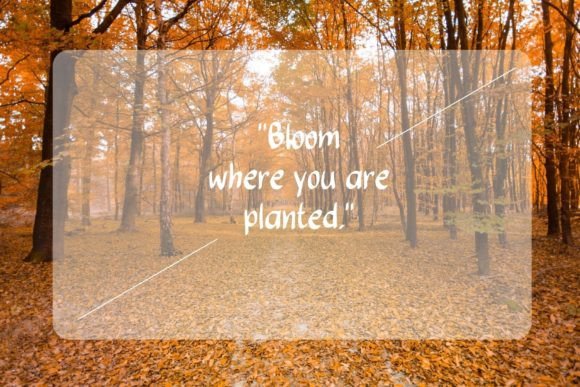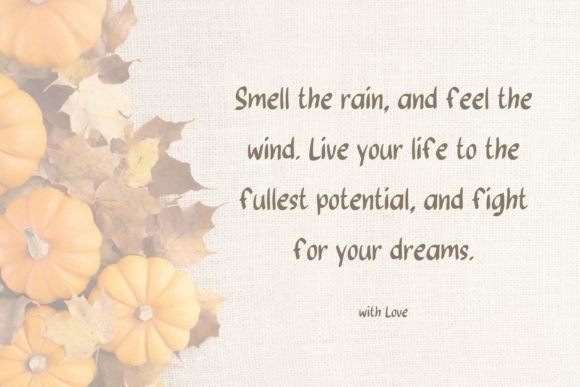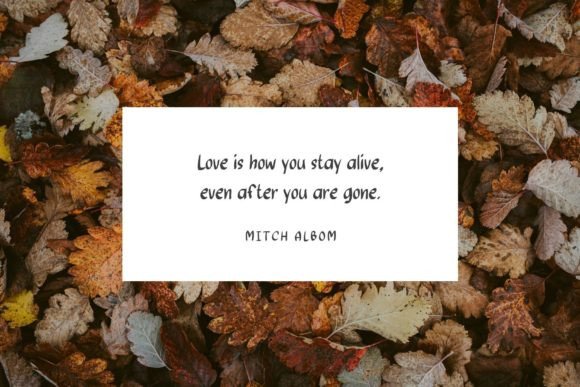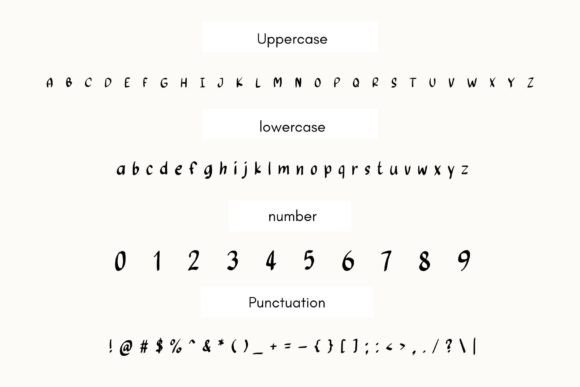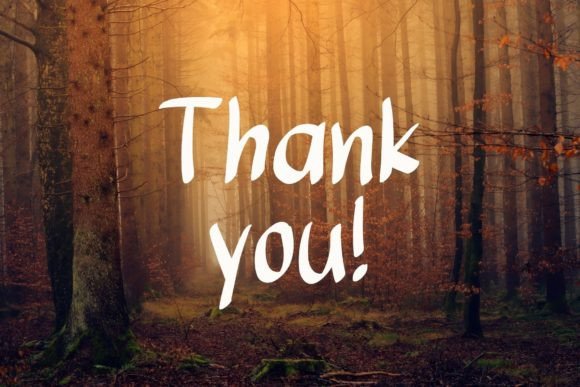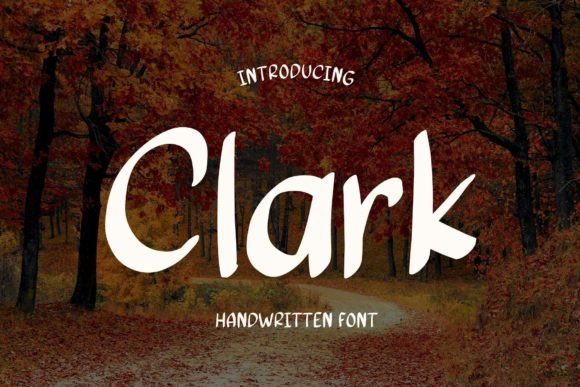
Discover the Charm of Clark Font: A Cute Handwritten Font for Your Creative Projects
Are you a designer, crafter, or DIY enthusiast looking for a font that embodies playfulness and authenticity? Look no further than Clark Font, a delightful handwritten font that’s perfect for a wide range of creative projects. From blog posts and logos to branding, ads, invitations, and more, Clark Font is the ideal choice for adding a personal touch to your designs.
What is Clark Font?
Clark Font is a carefully crafted handwritten font that exudes a sense of playfulness and friendliness. Its unique charm makes it an excellent choice for designers and crafters who want to add a personal touch to their work. Whether you’re creating a blog post, logo, or greeting card, Clark Font is sure to make your design stand out.
Characteristics of Clark Font
So, what makes Clark Font so special? Here are some of its key characteristics:
• Playful and Authentic: Clark Font has a carefree, handwritten feel that’s perfect for designs that require a personal touch.
• Versatile: This font is suitable for a wide range of projects, from digital designs to print materials.
• Elegant yet Casual: Clark Font strikes the perfect balance between elegance and casualness, making it ideal for designs that require a touch of sophistication.
Uses for Clark Font
Clark Font is an incredibly versatile font that can be used for a variety of projects, including:
• Blog Posts: Add a personal touch to your blog posts with Clark Font, making them more engaging and readable.
• Logos and Branding: Create a unique and memorable logo for your business or brand with Clark Font.
• Ads and Marketing Materials: Use Clark Font to create eye-catching ads and marketing materials that grab attention.
• Invitations and Greeting Cards: Add a touch of warmth and personality to your invitations and greeting cards with Clark Font.
• Planners and Photo Albums: Create beautiful and functional planners and photo albums with Clark Font.
• Decorations and Crafts: Use Clark Font to add a personal touch to your decorations and crafts, making them truly unique.
Why Choose Clark Font?
So, why should you choose Clark Font for your next project? Here are just a few reasons:
• Unique and Eye-Catching: Clark Font is a one-of-a-kind font that will make your designs stand out from the crowd.
• Easy to Read: Despite its playful nature, Clark Font is easy to read, making it perfect for body text and other written content.
• Customizable: Clark Font can be customized to fit your design needs, ensuring that it perfectly complements your project.
Tips for Using Clark Font
To get the most out of Clark Font, here are a few tips to keep in mind:
• Use it Sparingly: While Clark Font is beautiful, it’s best to use it sparingly to avoid overwhelming your design.
• Experiment with Colors: Clark Font looks great in a variety of colors, so don’t be afraid to experiment and find the perfect hue for your design.
• Pair it with Other Fonts: Clark Font pairs well with other fonts, so feel free to get creative and find the perfect combination for your project.
In conclusion, Clark Font is a charming handwritten font that’s perfect for designers, crafters, and DIY enthusiasts. Its playful and authentic nature makes it an excellent choice for a wide range of creative projects, from blog posts and logos to branding, ads, and more. With its versatility, elegance, and ease of use, Clark Font is sure to become a favorite in your design toolkit.